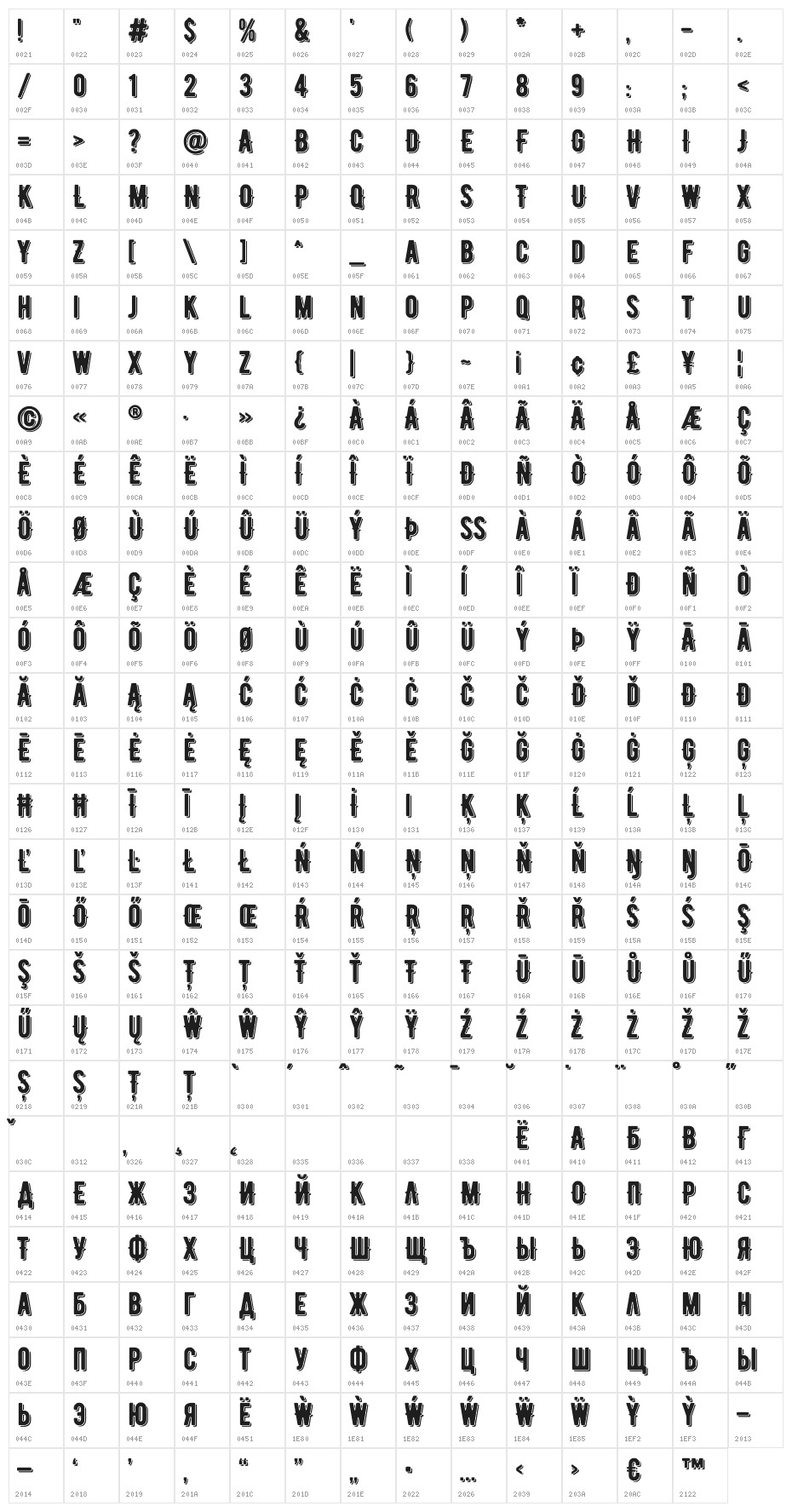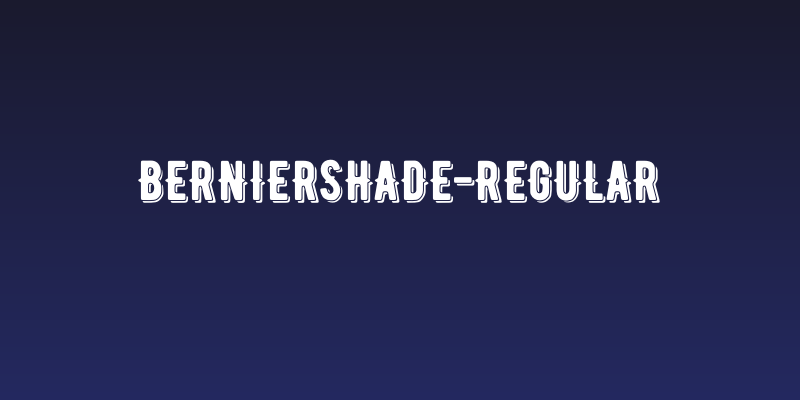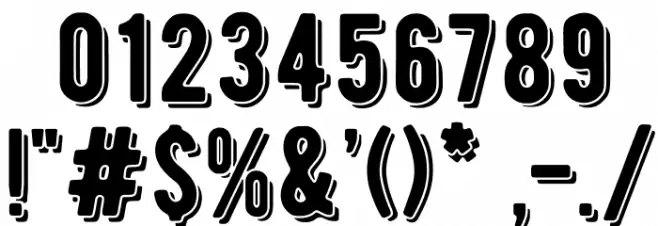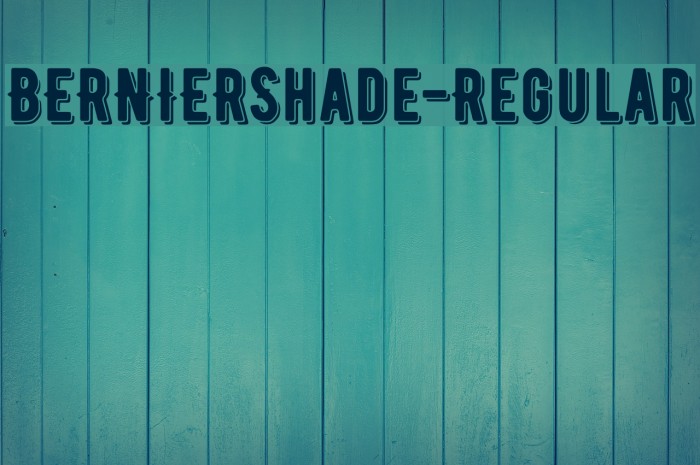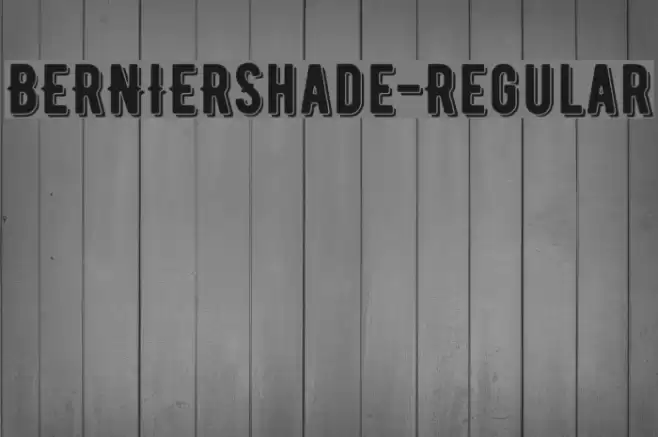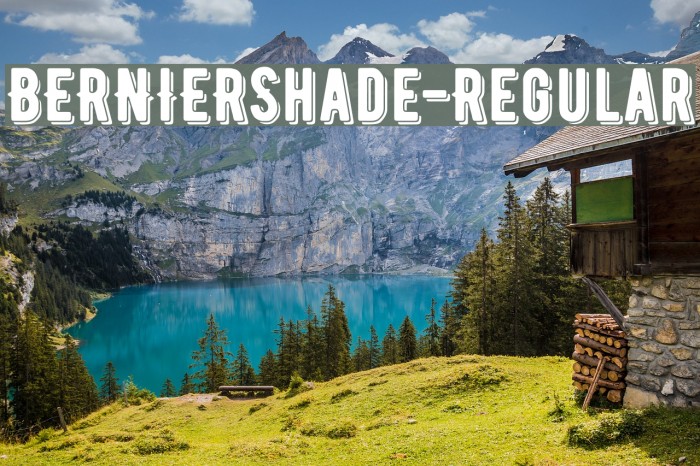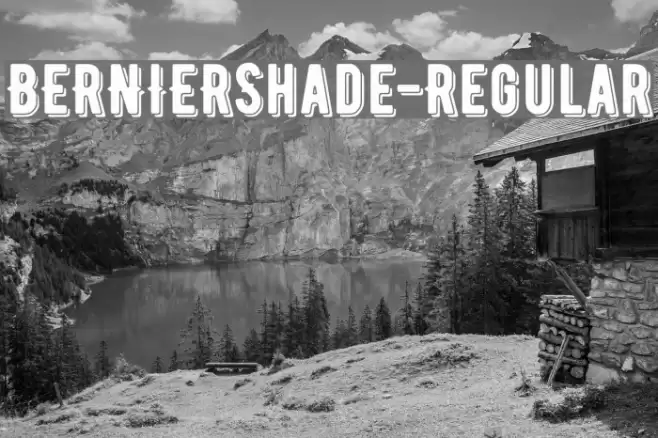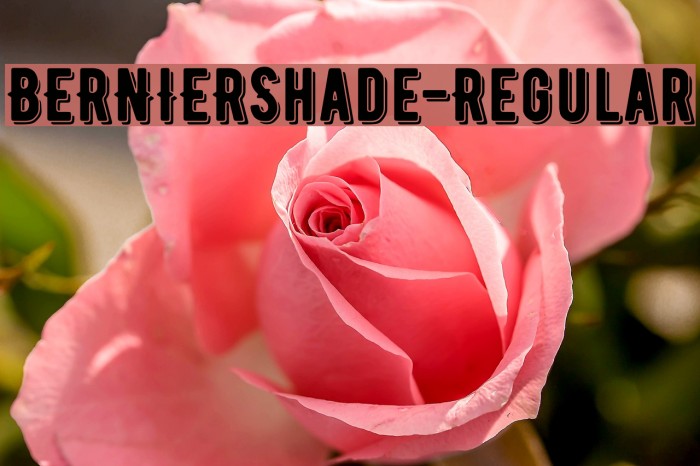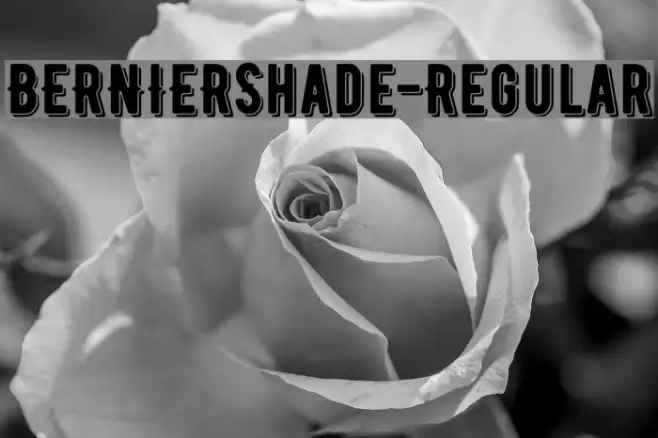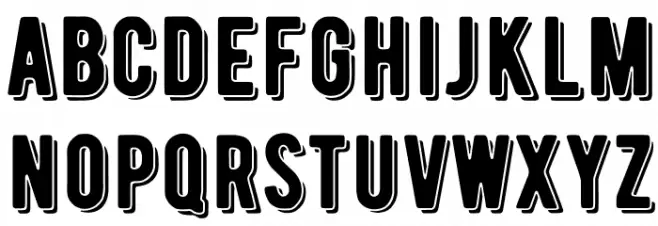
BERNIERShade-Regular Font
| おすすめプロジェクト | This font is perfect for poster designs, branding projects, and any creative work that requires a bold, eye-catching typeface. It can also be used for logos, signage, and packaging to create a memorable visual impact. |